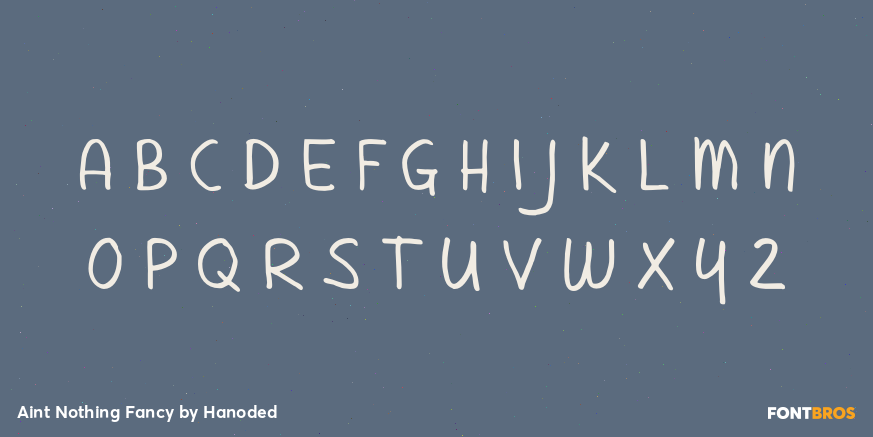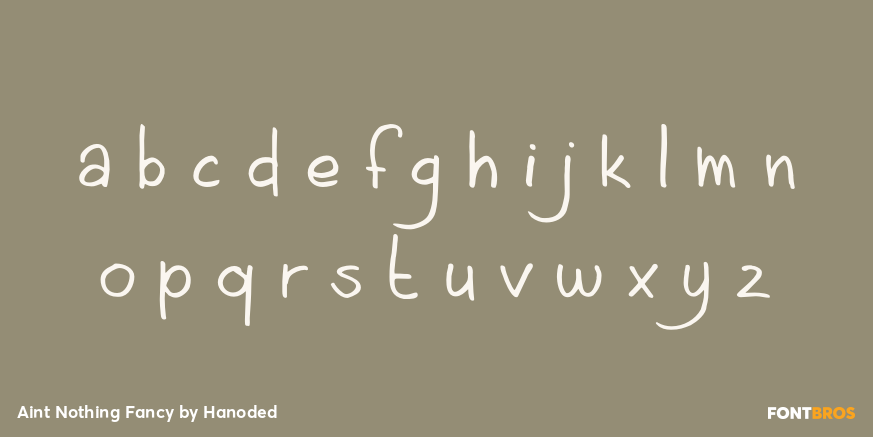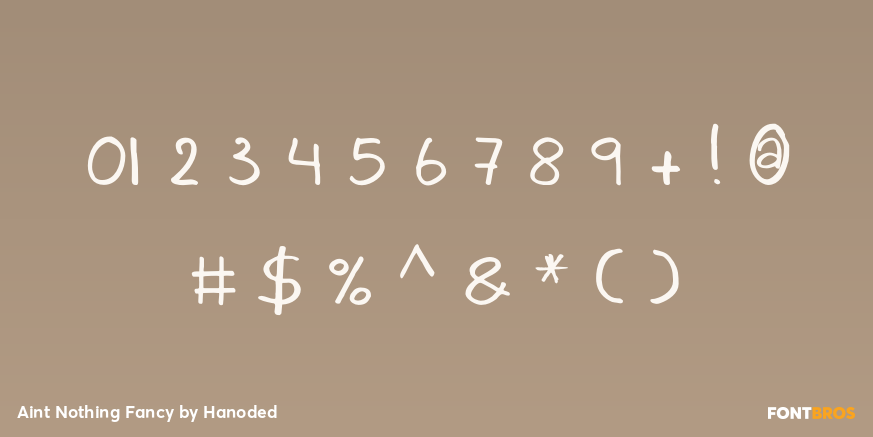
Aint Nothing Fancy
Font Family by Hanoded
A nice, ‘normal’ script font without the frills and thrills of my other work. It’s a handwritten typeface with a schoolboy kind of feel to it. Use it for your websites, your letters and product descriptions! Because of its unobtrusive nature, the font won't attract too much attention, so your work will stand out better.